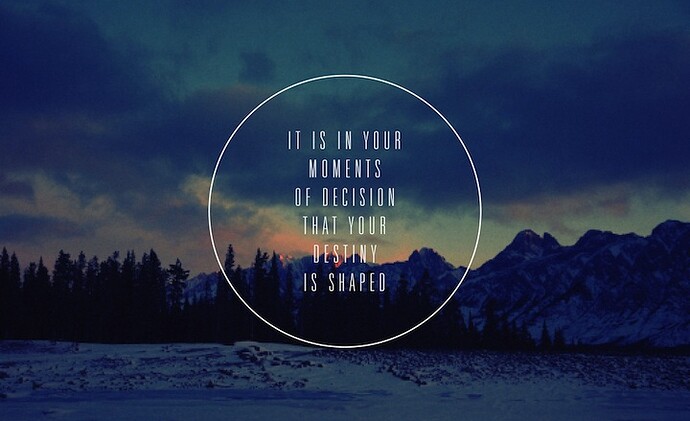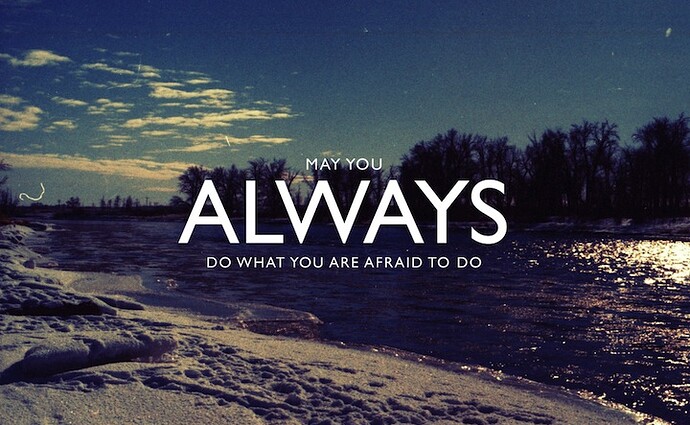
Need to identify this fonts. Please help, especially the “We empower visionaries..”
Fonts are close matches AFAIK and perhaps only suggestions.
1: Palm trees: Helvetica Thin. Letter spaced compressed
2: IT IS IN YOUR MC: Mannesmann ScanGraphic/Univers 39
3: MAY YOU ALWAYS: Monotype MT/Gill Sans
4: We empower visionaries: seems close to Merriweather by Eben Sorkin.